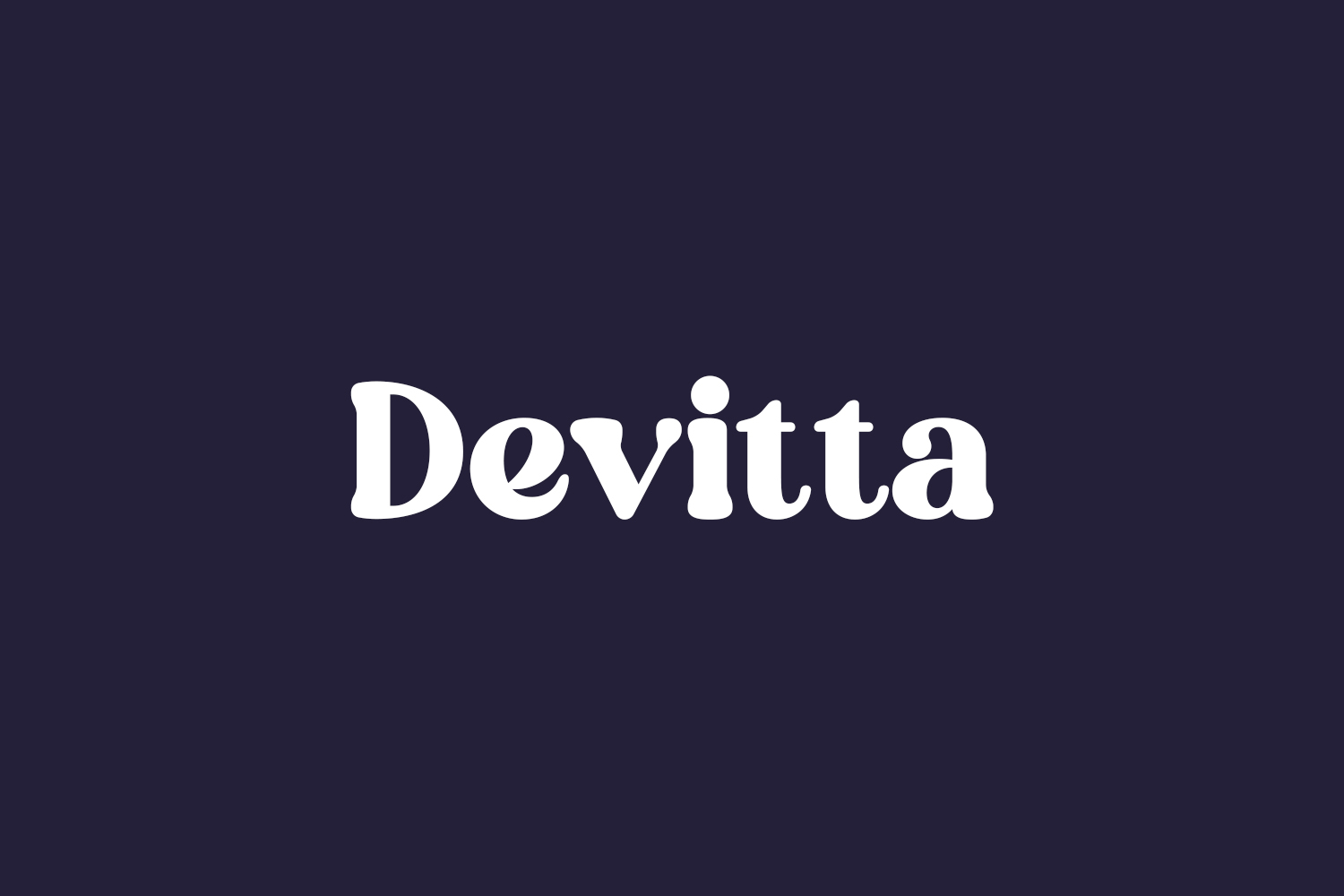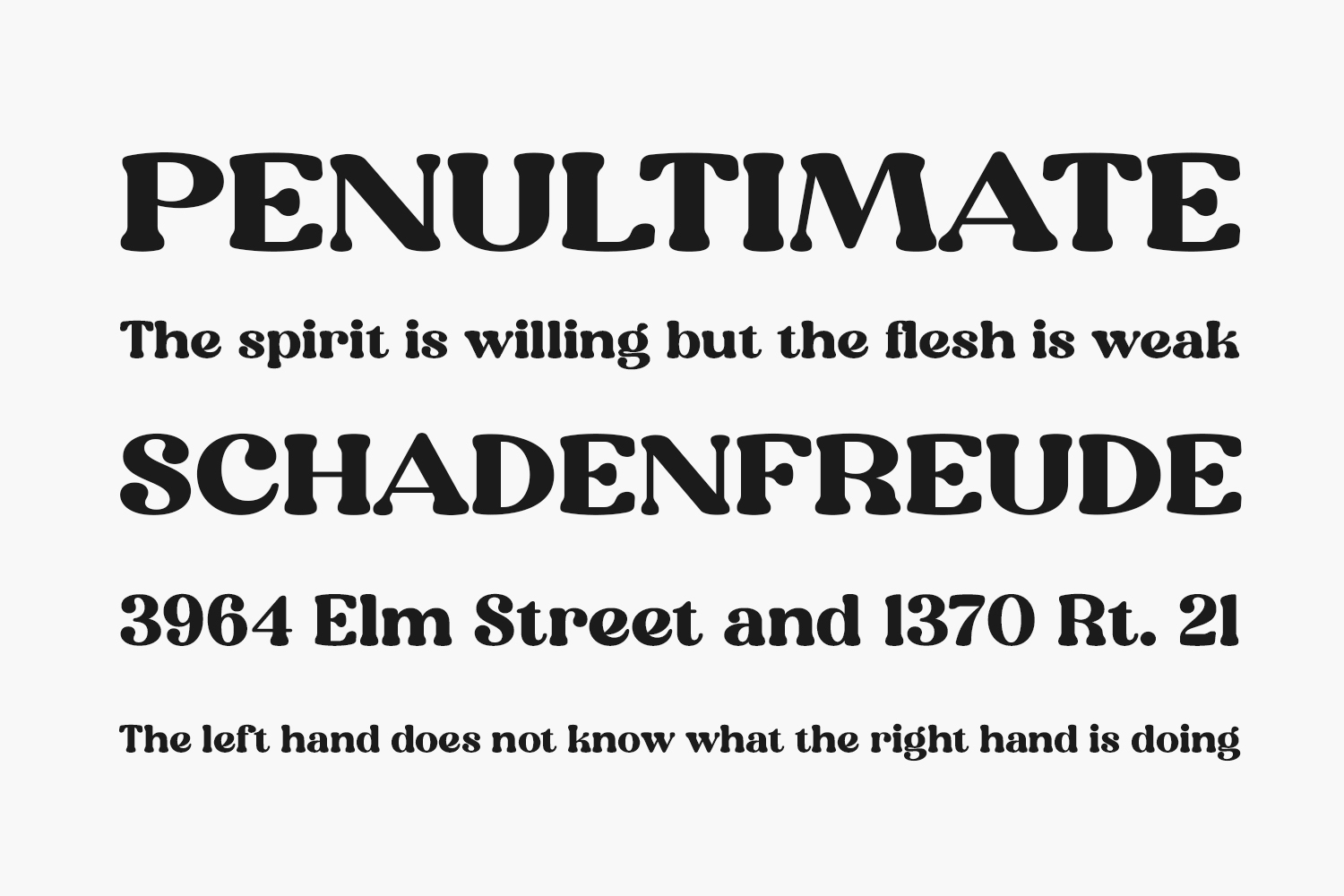
Devitta Free Font Family is a classy and modern serif font. This font is neatly crafted and highly detailed. Devitta Free Font Family was designed by Perspectype Studio and is free for personal use only. Please purchase the full version for commercial use.